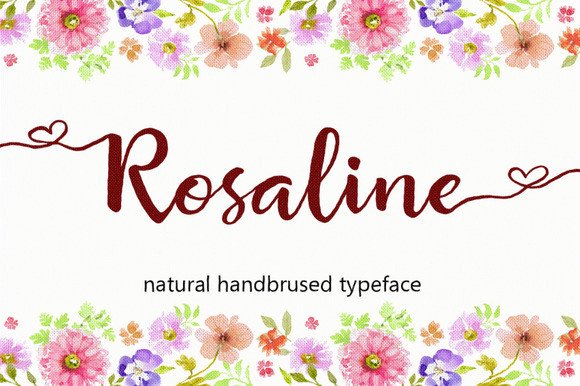
Introducing Rosaline Font: The Quintessential Essence of Elegance and Grace
Journey into the realm of exquisite typography with Rosaline Font, an awe-inspiring creation from the renowned Byuly Ayika, a maestro of the written art. Rosaline is not merely a font; it is an ode to beauty, a symphony of curves and strokes that dances across your screen, captivating the eyes and stirring the soul. With its Latin script roots, Rosaline embodies the timeless charm of classic calligraphy, reimagined for the digital age.
As you explore the depths of this remarkable font, you'll discover over 370 unique glyphs, each meticulously crafted to perfection. Each letter, each symbol, each punctuation mark is a testament to Byuly Ayika's artistry, a labor of love that shines through in every detail. And then there are the swashes, those graceful, sweeping flourishes that add a touch of whimsical elegance to your text. Use them sparingly for a subtle hint of sophistication or go bold and let them dance across the page, creating a visual feast that's sure to leave your audience spellbound.
With Rosaline Font, the possibilities are endless. Create wedding invitations that exude romance and timeless charm, or thank-you notes that express your gratitude with a touch of heartfelt elegance. Design cards that capture the joy of special occasions or wooden signs that add a touch of rustic charm to your home décor. Rosaline is the perfect font to bring your creative visions to life, adding a touch of magic to every project.